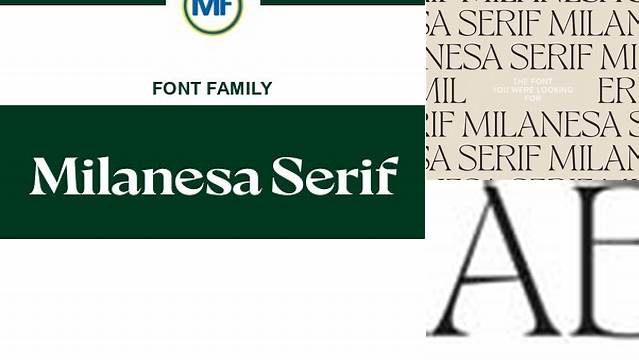
Hey design enthusiasts! Are you on the hunt for a free and stylish serif font to elevate your projects? Look no further because we're diving deep into the world of the Milanesa Serif font! This font is a real gem, offering a perfect blend of elegance and readability. In this comprehensive guide, we'll explore everything you need to know about Milanesa, including how to snag it for free, its key features, and how to best use it in your designs. Whether you're a seasoned designer or just starting out, this article is packed with valuable information to help you make the most of this fantastic font. So, let's get started and unlock the potential of Milanesa!
What is Milanesa Serif Font?
Milanesa Serif is a contemporary serif typeface known for its clean lines, balanced proportions, and a touch of modern flair. Created by an awesome design team, this font is a go-to choice for a variety of projects, ranging from branding and editorial design to website headers and print materials. Its versatility is one of its standout features, making it suitable for both headlines and body text. The designers have meticulously crafted each letter, ensuring a harmonious flow and excellent legibility, even at smaller sizes. With its refined aesthetic, Milanesa effortlessly adds a touch of sophistication to any design. When choosing a font, it's crucial to consider the overall message and tone you want to convey. Milanesa's elegant yet approachable style strikes the right balance, making it ideal for projects that aim to communicate both professionalism and creativity. Think of it as the perfect middle ground between classic and modern, offering a timeless appeal that won't go out of style anytime soon. The details in the letterforms are subtle but impactful, providing a visual interest that elevates the design without overwhelming it. Its inherent readability means it's not just about looking good; it's about ensuring your audience can easily understand your message. From the subtle curves to the precise serifs, every element of Milanesa is designed to enhance the reading experience, resulting in a font that is both beautiful and functional. Its balanced design makes it suitable for a variety of applications, from elegant websites to stylish print materials. This font is like a blank canvas, ready to bring your creative vision to life.
This font is a versatile tool, and when you decide to start using Milanesa, you're not just selecting a font; you're making a statement. You're telling your audience that you appreciate quality, precision, and a touch of artistic flair. The font's adaptability means it can be used in various contexts, making it a valuable asset in any designer's toolkit. Its ability to blend seamlessly into different designs sets it apart. Whether you're working on a minimalist website, a vibrant magazine layout, or a sophisticated branding campaign, Milanesa can adapt and shine. That is why many designers and companies have added this to their arsenal of tools.
Key Features of Milanesa Serif Font
Let's take a closer look at what makes Milanesa Serif stand out from the crowd. First off, it boasts a wide range of weights and styles, providing you with flexibility. You can go from a delicate light weight for a more airy feel to a bold, heavier weight for impactful headlines. Then there are the italics, which add a touch of elegance and dynamism. Another great feature is its excellent legibility. This is really important, especially in body text, where clarity is key. No one wants a font that's hard to read, right? Milanesa ensures that your text is both beautiful and easy on the eyes. The design team behind Milanesa has paid close attention to every detail, from the spacing between letters to the shapes of the serifs. This attention to detail results in a font that looks fantastic and functions flawlessly across different platforms and devices. Because of these features, Milanesa Serif is an awesome choice. It is built with versatility and ease of use in mind.
What else makes this font a must-have? It supports multiple languages. This is an often-overlooked feature, but it's super important if you're working on international projects or content. It’s super important to be aware of this. Finally, the overall aesthetic of Milanesa is modern yet timeless. It has a clean, sophisticated feel that works well in a variety of design contexts. It's the kind of font that can elevate your brand or project without being too flashy or trendy. The font's ability to blend into a wide range of styles and projects makes it super versatile. It’s also worth noting that Milanesa typically comes with a generous character set, which includes a wide array of glyphs, ligatures, and special characters. These extra characters give you more design flexibility, allowing you to add unique touches and visual interest to your designs. This is super useful for designers. This extensive character set is particularly helpful when working on complex projects where you need specific symbols or variations of letters.